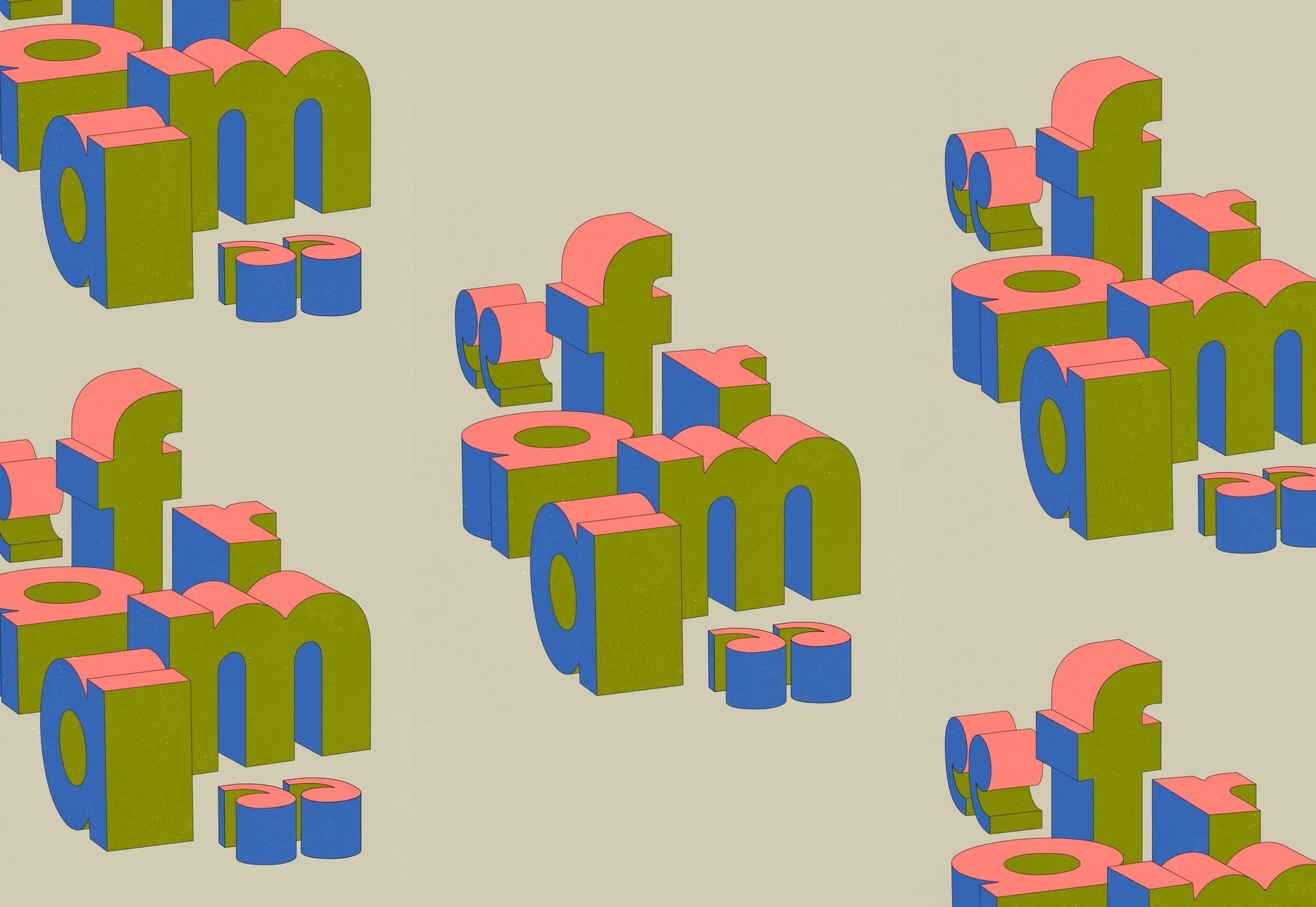
For nearly a century, Futura has been the default answer when designers reach for geometric modernism.
With its precise geometry, clean circles, and rational construction, Futura became the visual language of modernity. Its clarity and confidence shaped everything from corporate identities to public institutions, earning a place in some of the most iconic moments of the 20th century, including the plaque left on the moon by the Apollo astronauts.
Today, that same spirit of optimism and functional elegance finds a contemporary counterpart in Frama. Built on similar modernist principles but tuned for today’s design needs, Frama offers a fresh, flexible alternative for designers who love the logic of Futura but want a more nuanced, current typographic voice.
The NEW alternative
But the world Futura was designed for no longer exists. Today’s brands demand the same clarity, with more warmth, flexibility, and personality. Instead of looking at multiple different fonts that could replace Futura in your designs, let's look at our best option. Let’s look at Frama.
Frama is a geometric sans serif rooted in early 20th-century modernism, drawing from the clarity of Futura and the expressive geometry of Avant Garde while establishing its own voice. At first glance, the lineage is clear. Circular forms, clean strokes, and confident proportions speak the same modernist language designers know and trust. Look closer, though, and Frama reveals a softer gravity. Subtle irregularities, careful spacing, and a refined balance between form and counterform give it a more human presence.
Frama Follows Function
Where Futura often feels rigid or cold in contemporary contexts, Frama feels intentional and alive. Its geometry is precise, but never sterile. The tension between perfect shapes and gentle optical corrections creates rhythm and warmth, allowing brands to communicate authority without feeling distant. This makes Frama particularly well suited for modern identities that need to feel confident, thoughtful, and culturally aware.
One of Frama’s greatest strengths as a Futura alternative is its versatility. Designed in both Display and Text cuts, it moves fluidly across scales and media. The Display styles lean into geometric expression with sharper details and stylistic alternates that bring character and memorability to any design. The Text styles soften the forms just enough to support longer reading without losing the underlying structure that makes Frama distinctive. This makes it easier to build cohesive systems where one type family does the heavy lifting across every situation.
A modern typeface for modern times
Frama is also designed with modern workflows in mind. Its multi-weight system and expressive alternates give designers room to experiment with tone and rhythm while maintaining a consistent visual voice. Whether used in minimal layouts, editorial design, branding systems, or interface work, Frama communicates quickly and confidently. It sets a tone without shouting.
Your next Futura
If Futura was the typeface of the Space Age, Frama feels like the typeface for what comes after. Maybe post-information age? Brutal-regressive-digital age? Whatever it is, Frama carries forward the modernist dream, but reimagines it for a landscape that values clarity alongside emotion. For designers who love the idea of Futura but need something more adaptable, more human, and more expressive, Frama is the alternative.